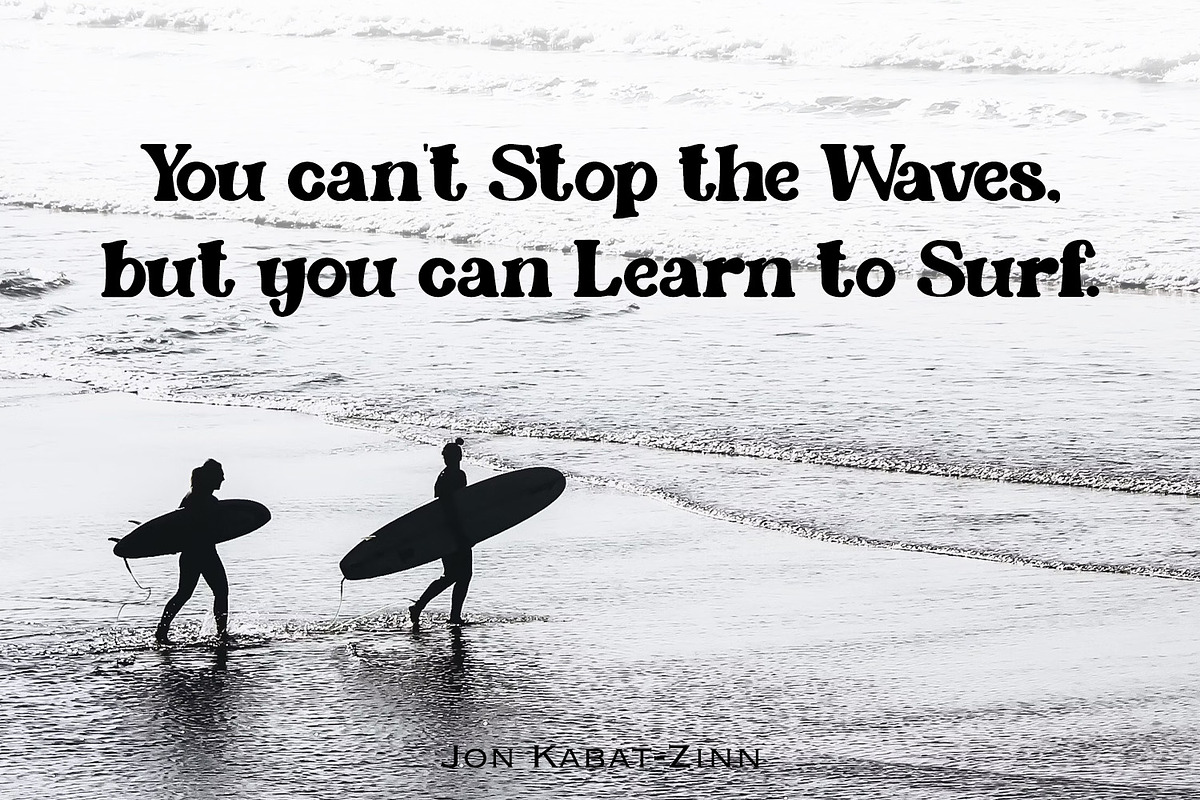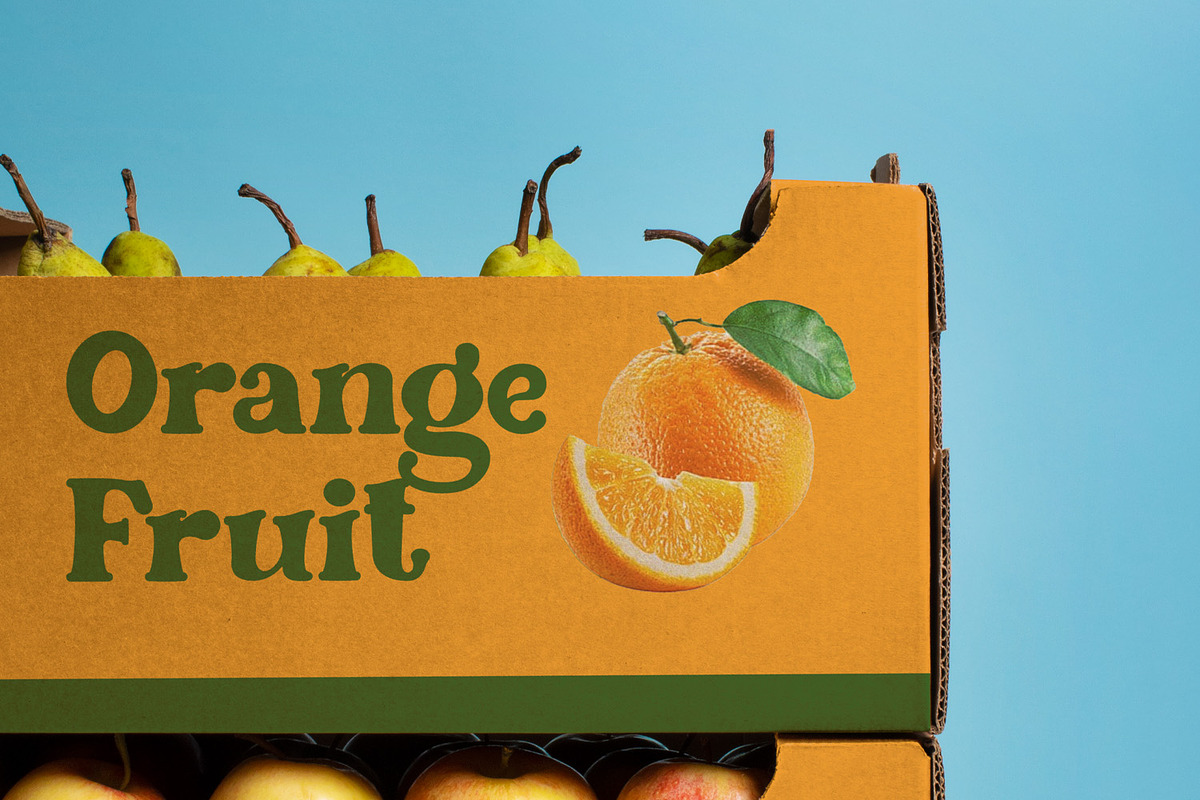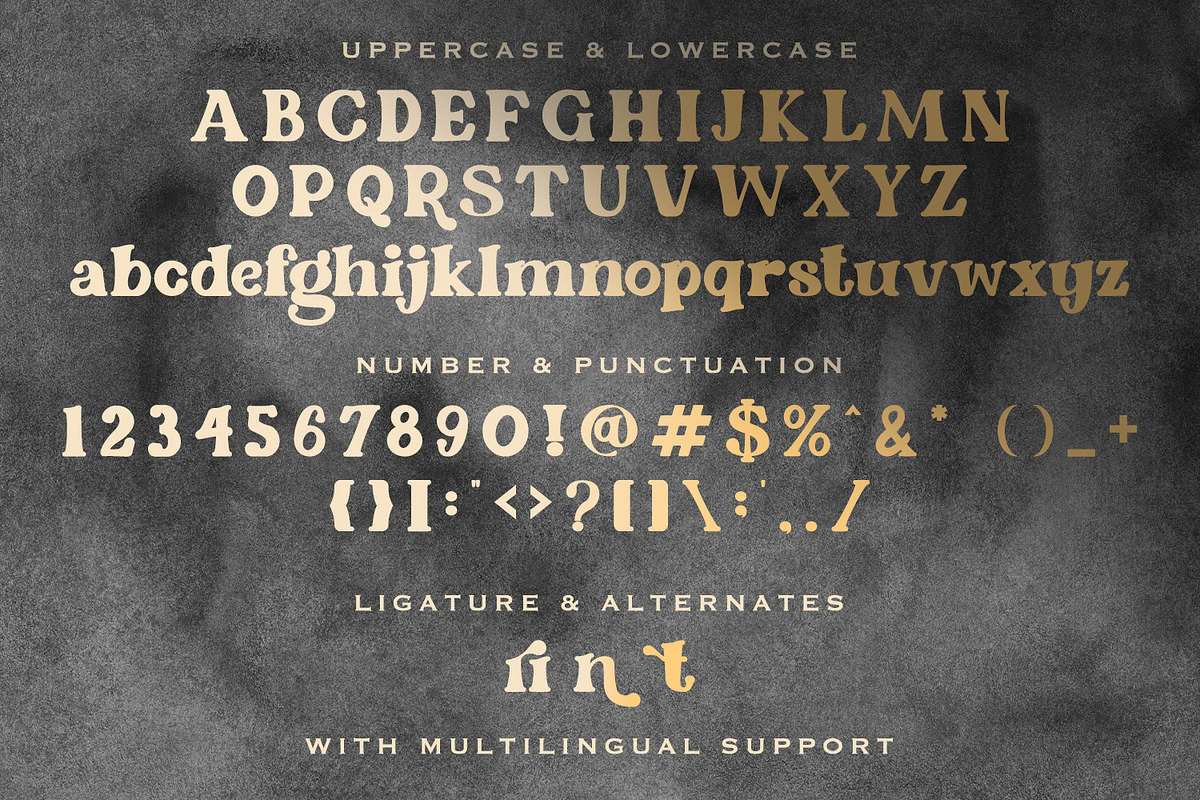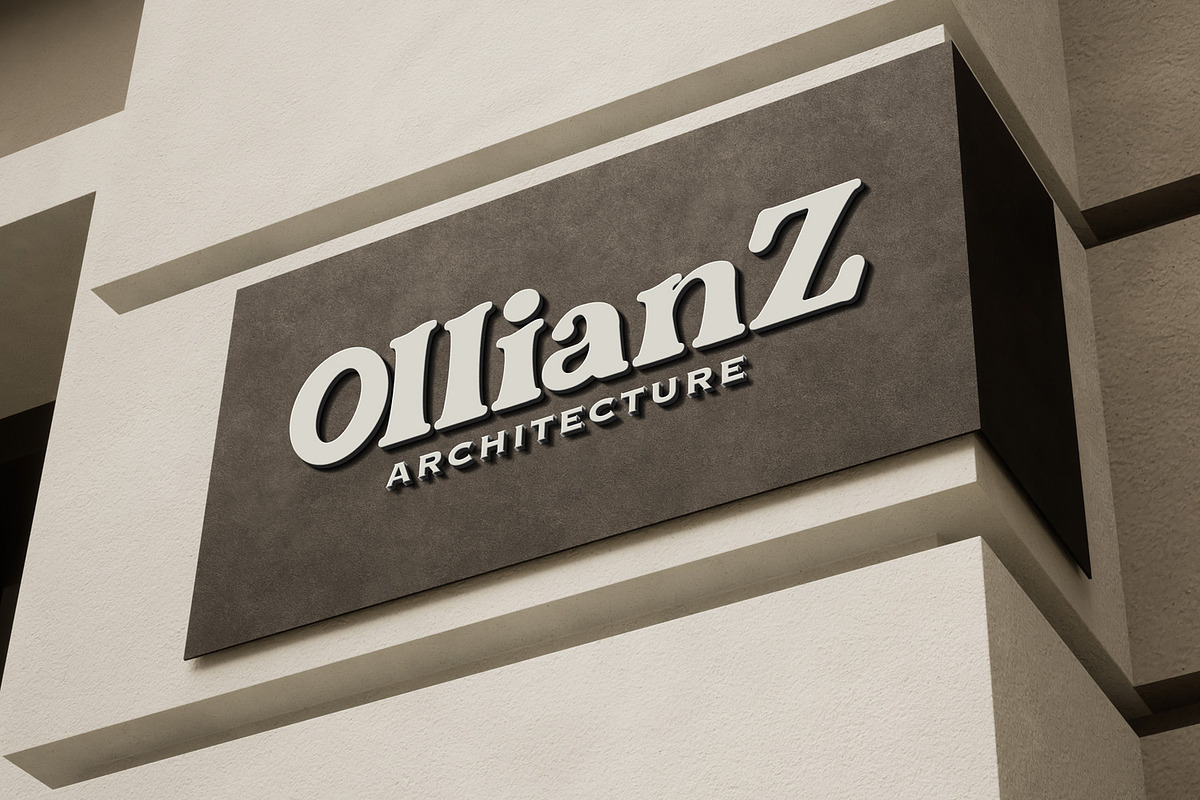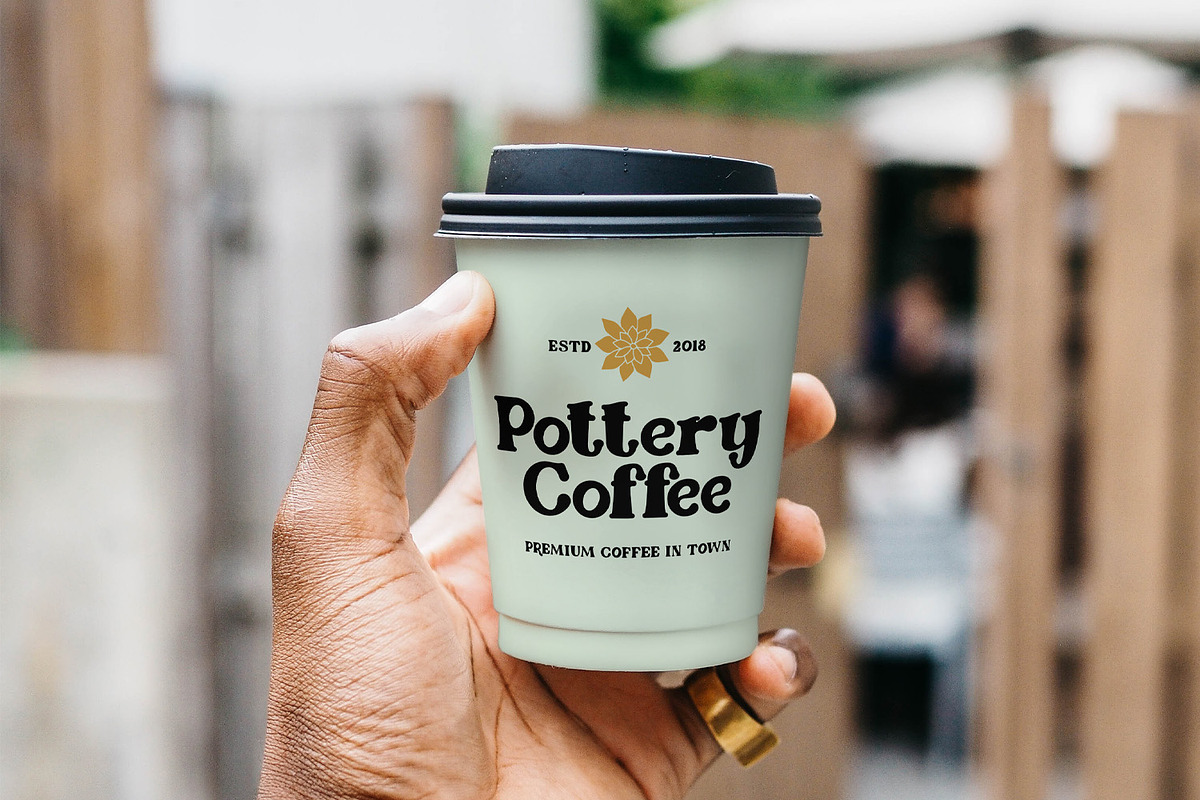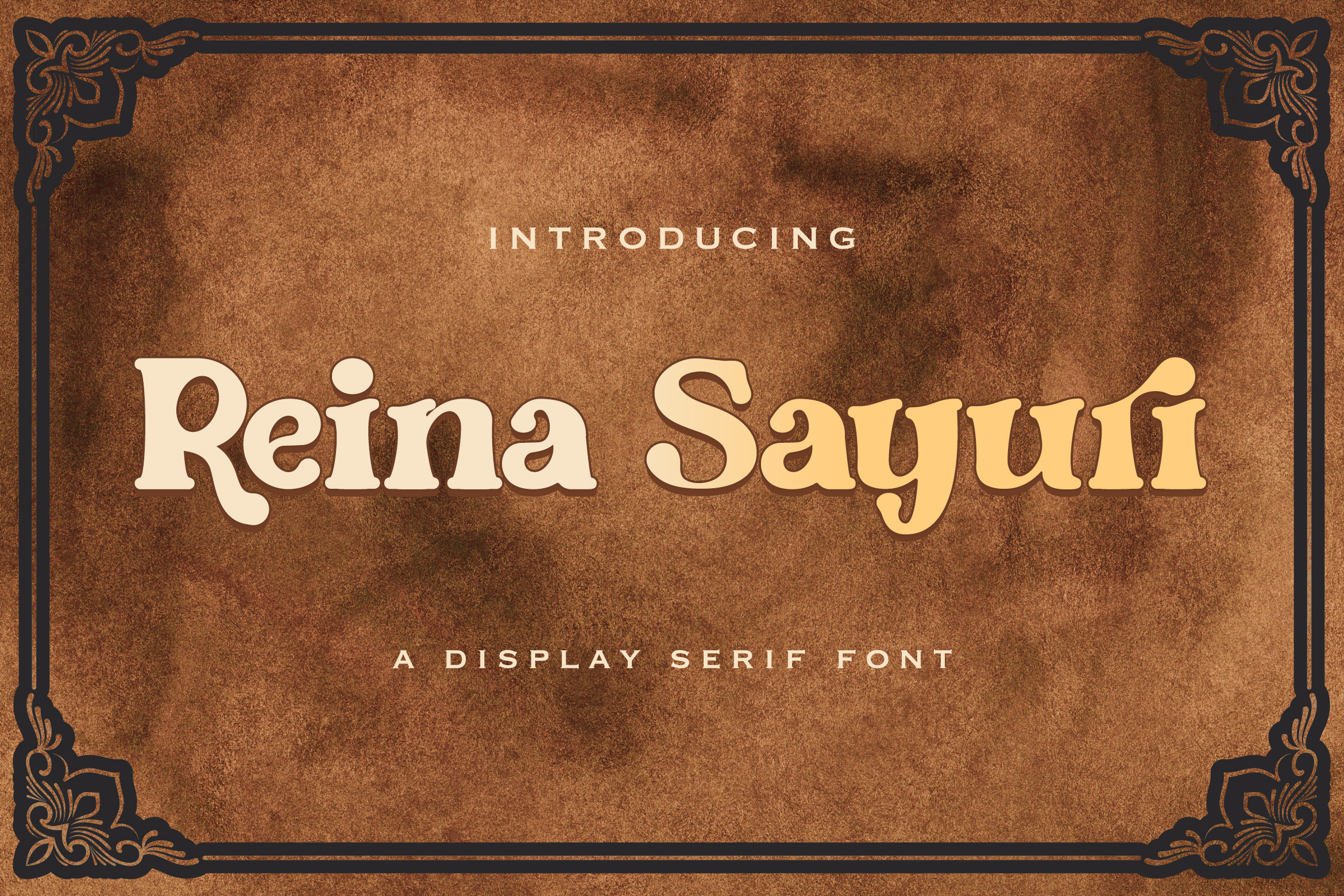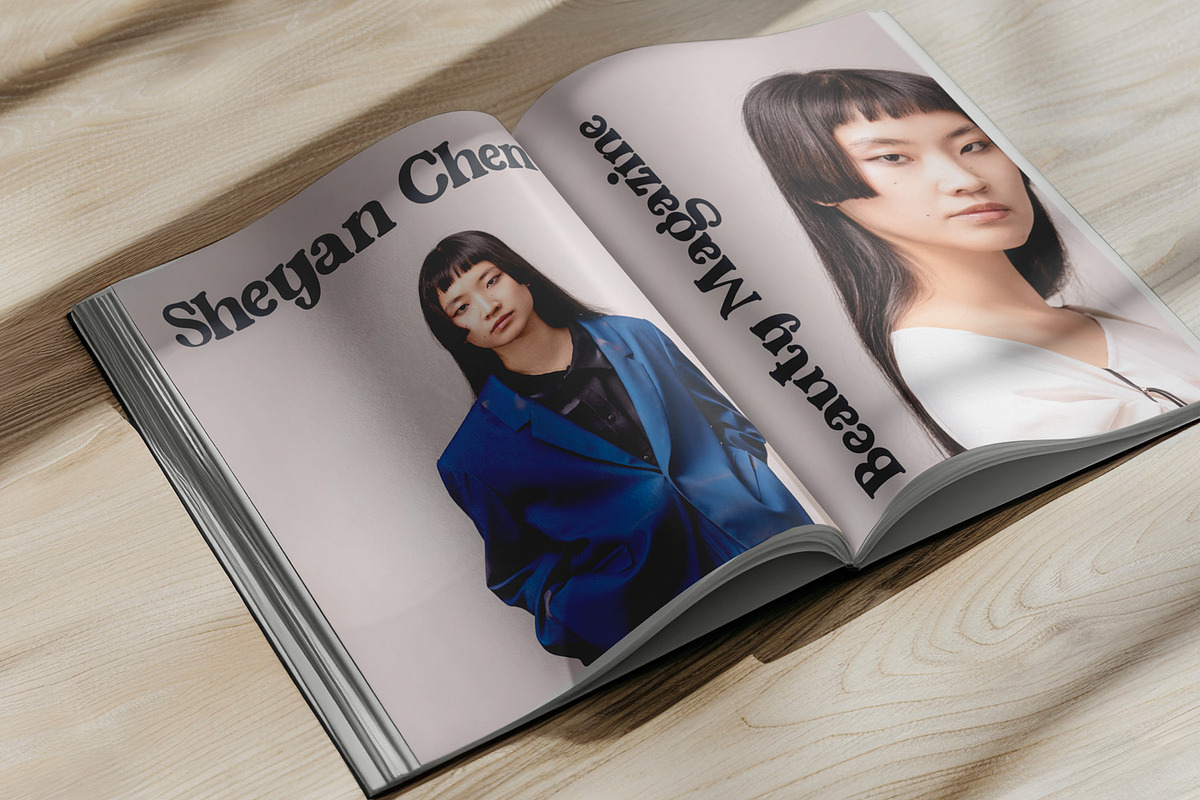
Reina Sayuri - Display Serif Font
Reina Sayuri is A Vintage Modern Display Serif
Reina Sayuri is a strong and bold serif font. It is curved, rounded, and has a unique retro and vintage style, perfect for branding. Use this display font to add that special retro vintage touch to any design idea!. Equipped with all complete characters ranging from uppercase letters, lowercase letters, numbers, punctuation marks, and multi-lingual support, this font is ready to be used in any project. Very suitable for logotype, Stickers, Packaging design, Cricut Project, headlines, brand identity, t-shirt or apparel industry, posters, magazines, books, YouTube, Instagram, websites, or any of your creative design projects.